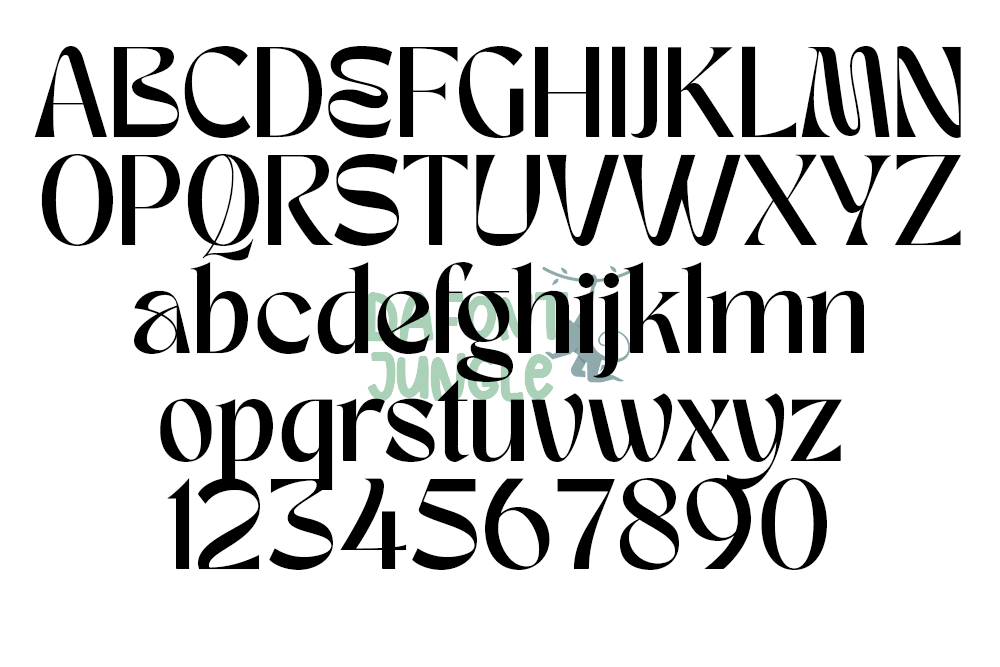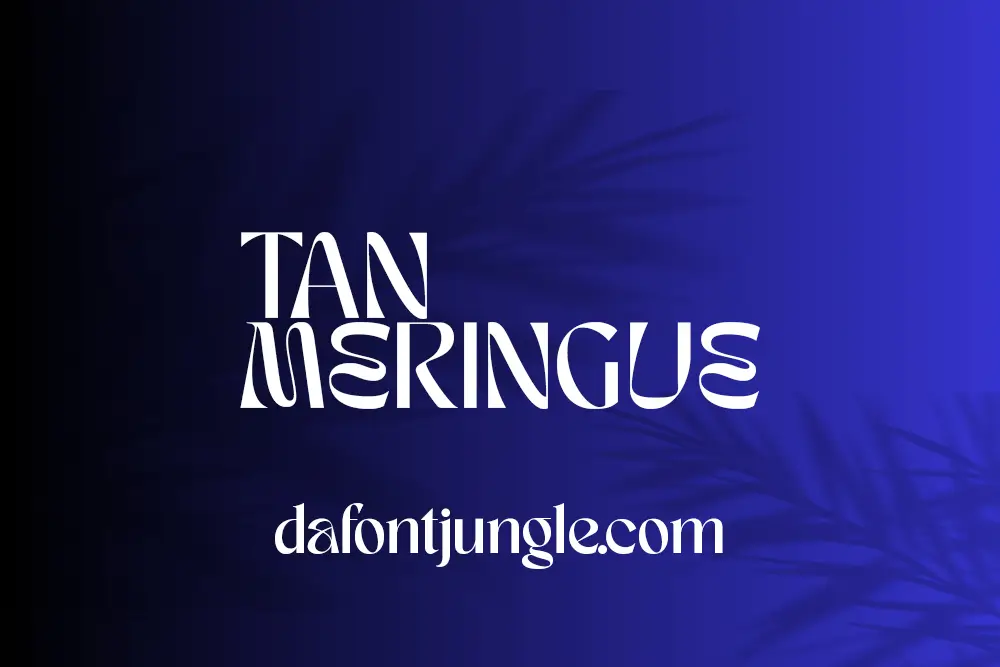
TAN MERINGUE – Playful Retro Display Font
TAN MERINGUE is a bold retro display font with soft curves and a cheerful vibe. Its fun personality adds charm and character to any design. Use it for posters, headlines, logos, or anything that needs a playful, standout look.
This typeface is perfect for vintage-inspired layouts, creative branding, and social media graphics that pop.